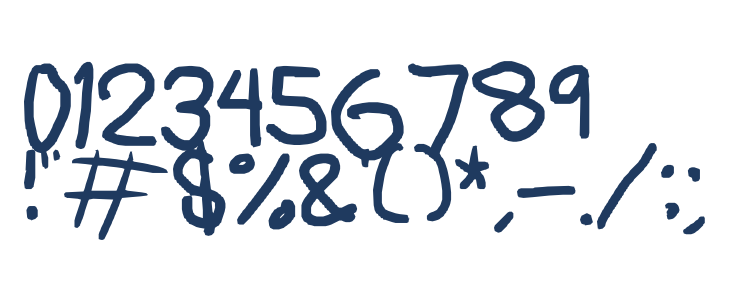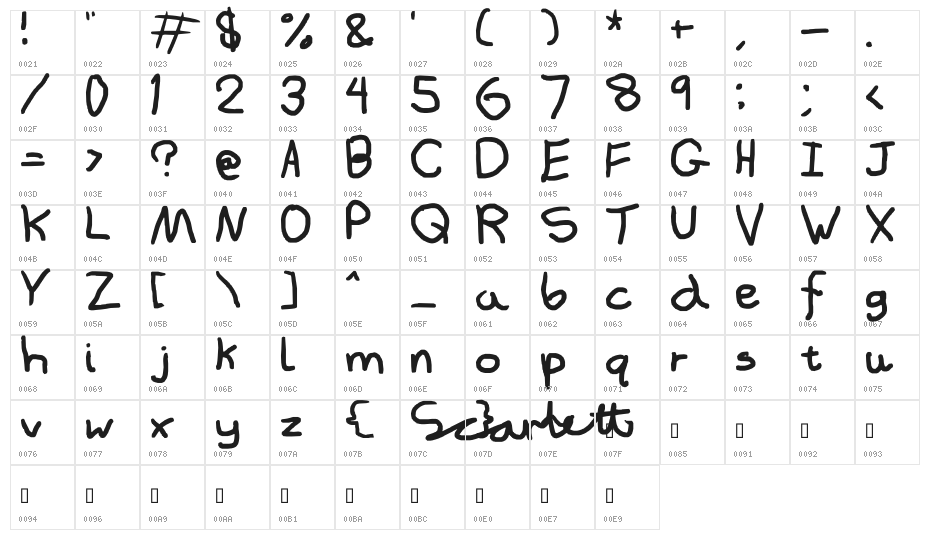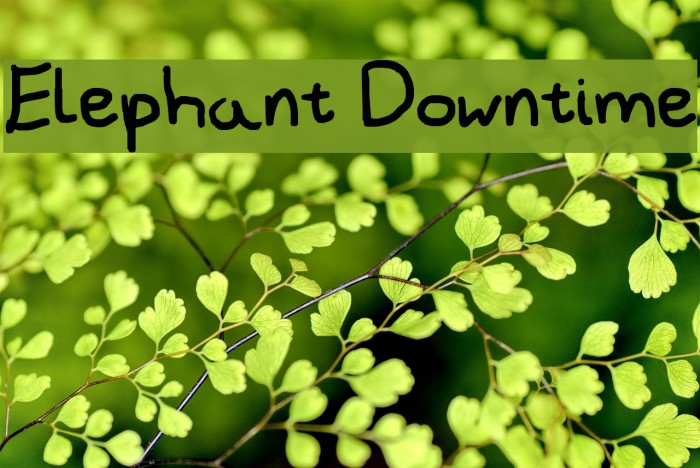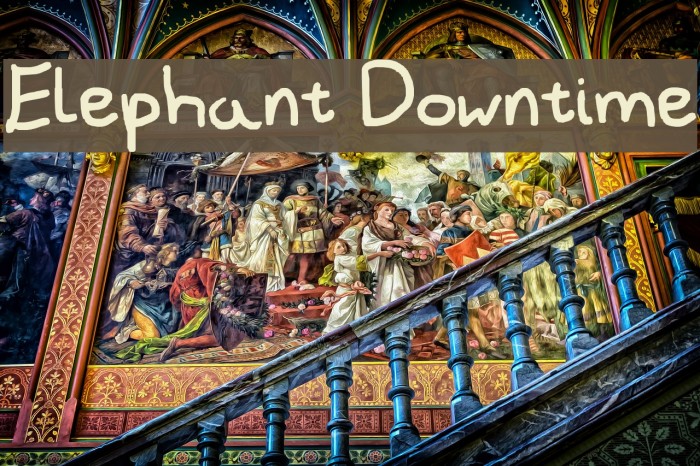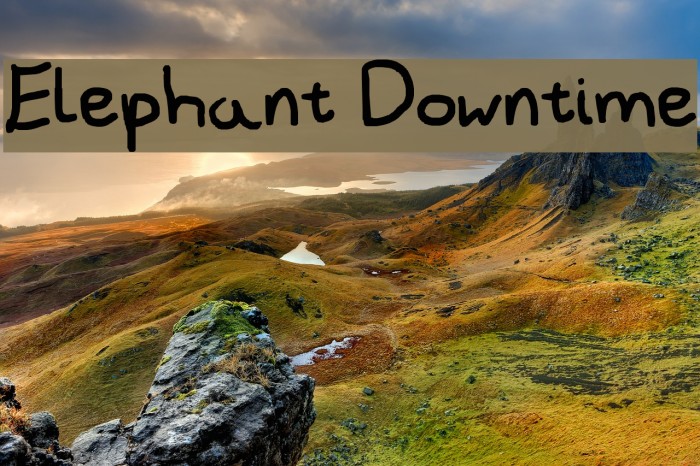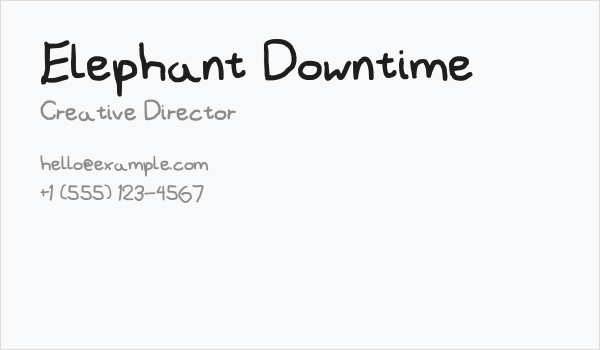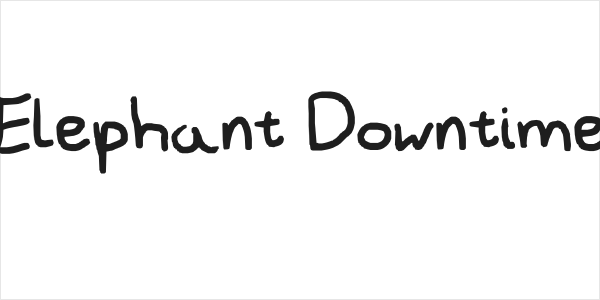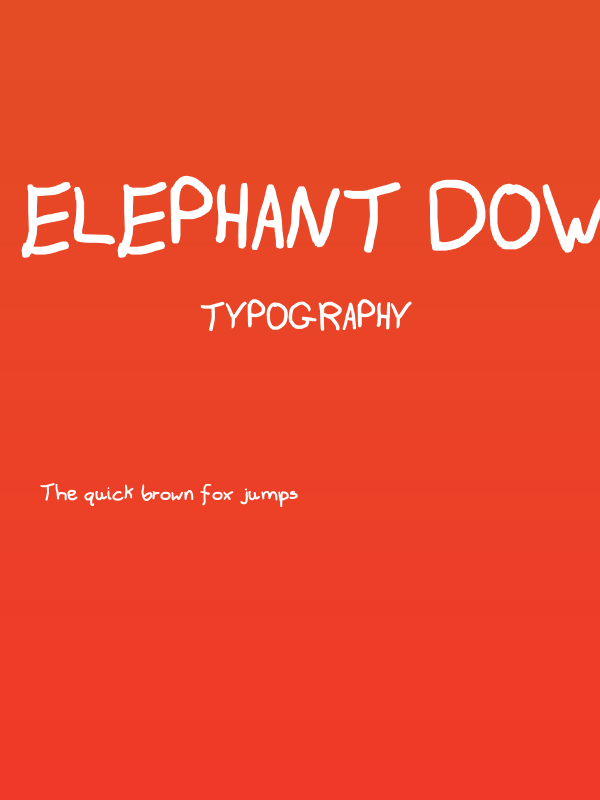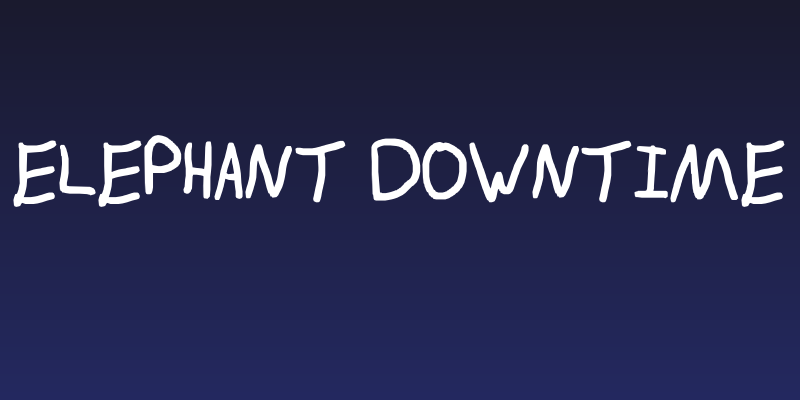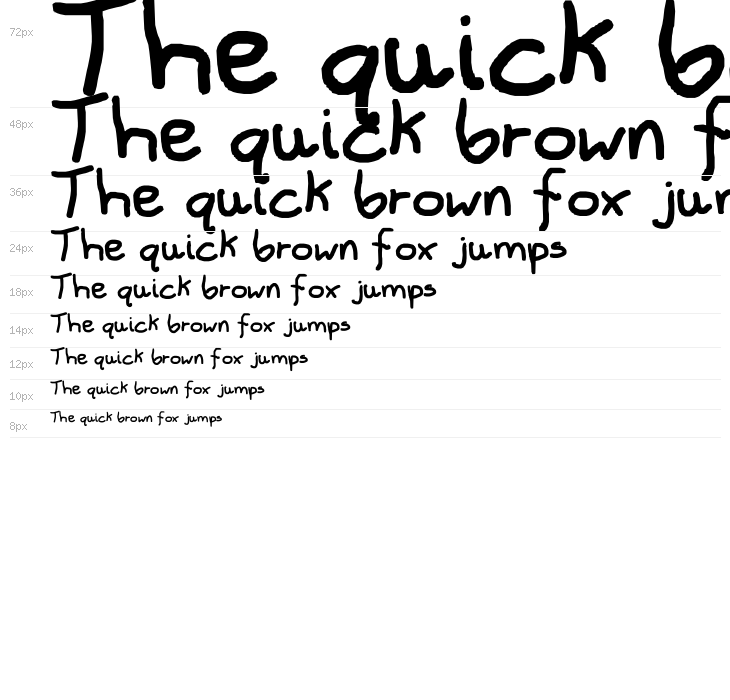
Elephant Downtime Font
Elephant Downtime Description
This playful and casual handwritten font exudes a sense of whimsy and informality. The characters are unevenly weighted, giving them a dynamic and lively appearance. The strokes are bold and slightly irregular, mimicking the natural flow of handwriting. This font captures a youthful and energetic vibe, making it perfect for projects that require a personal touch. The letters are well-spaced, ensuring readability while maintaining a relaxed style. The numbers and special characters are consistent with the overall playful theme, adding to the font's versatility.
| Proposed Projects | Ideal for children's books, greeting cards, casual branding, and social media graphics. |